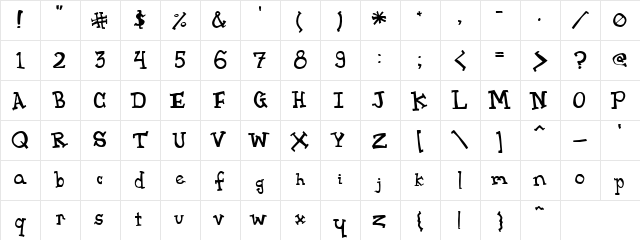
Pink Regular Free Font
Pink Regular
Design Context for Pink
Pink is a composed and adaptable typeface that performs quietly and consistently across a wide range of design contexts.